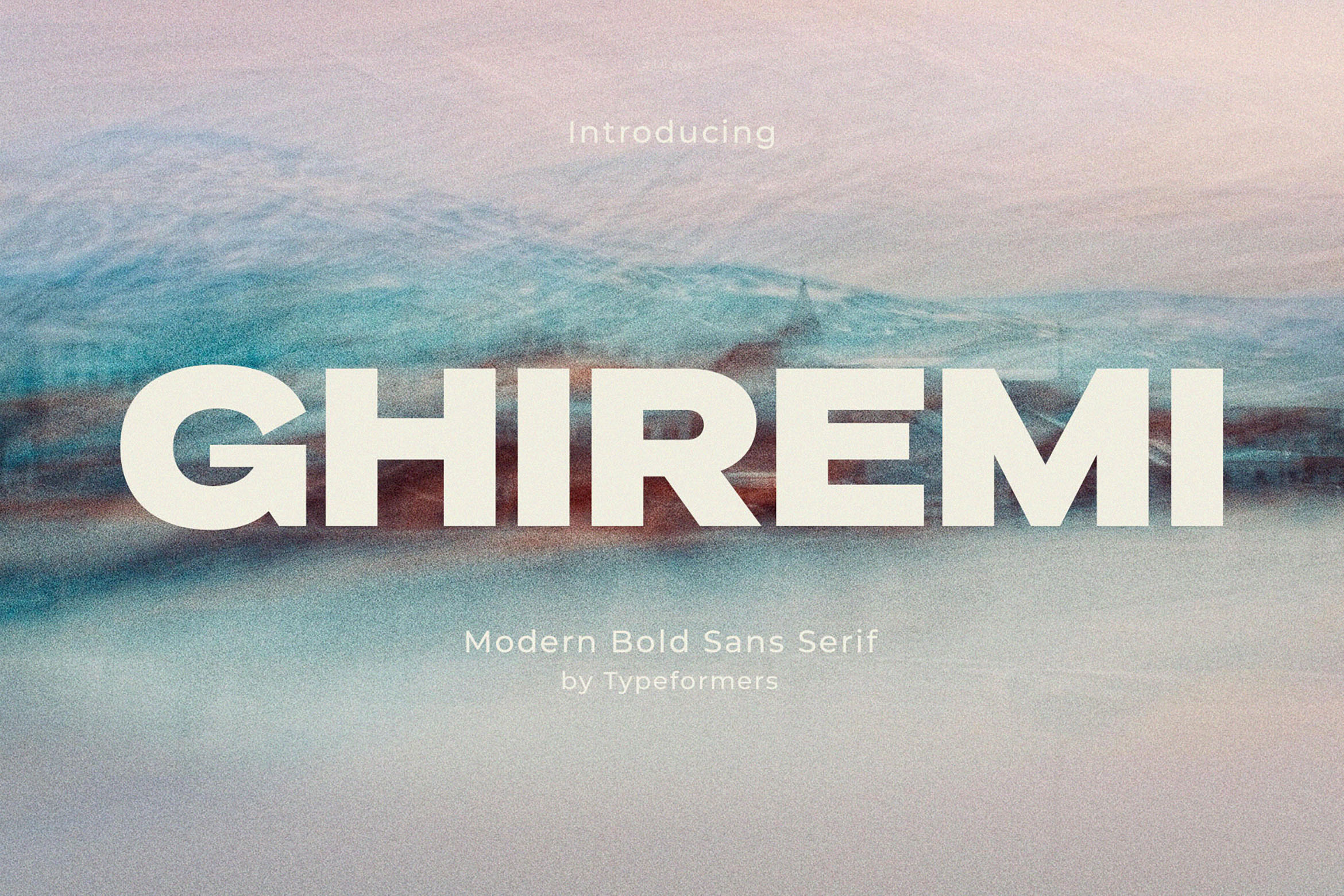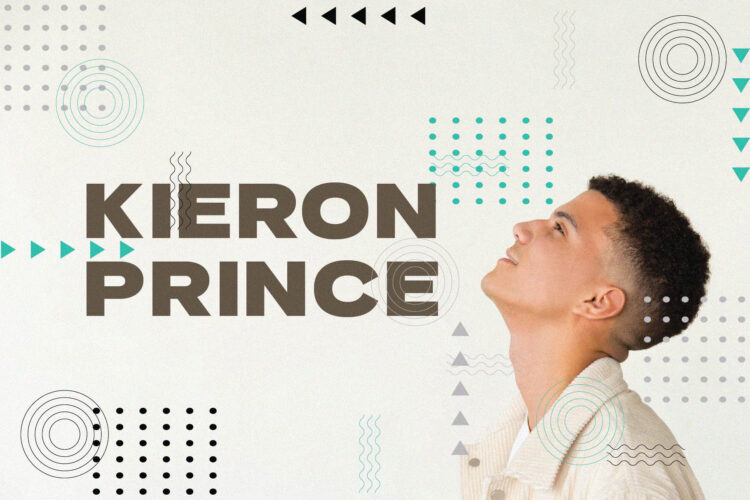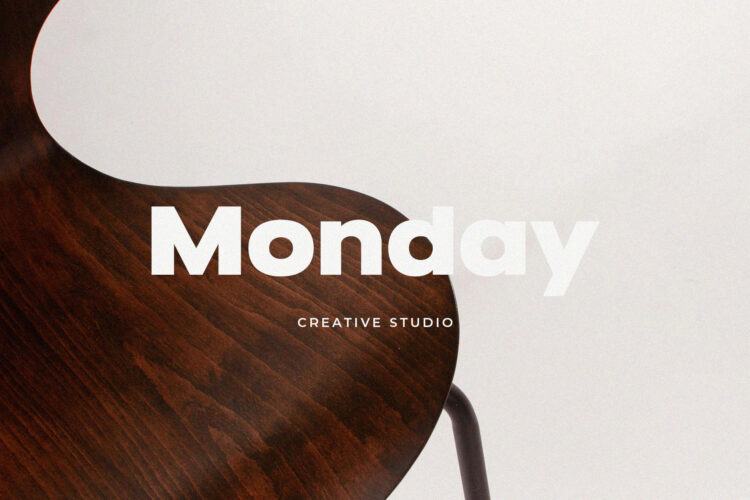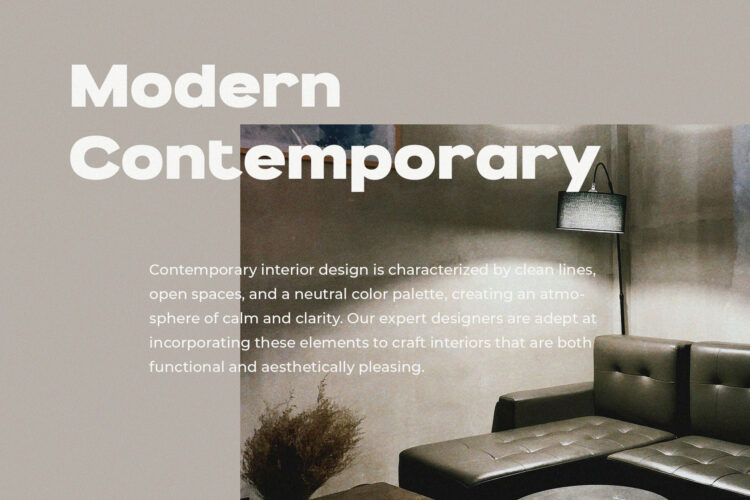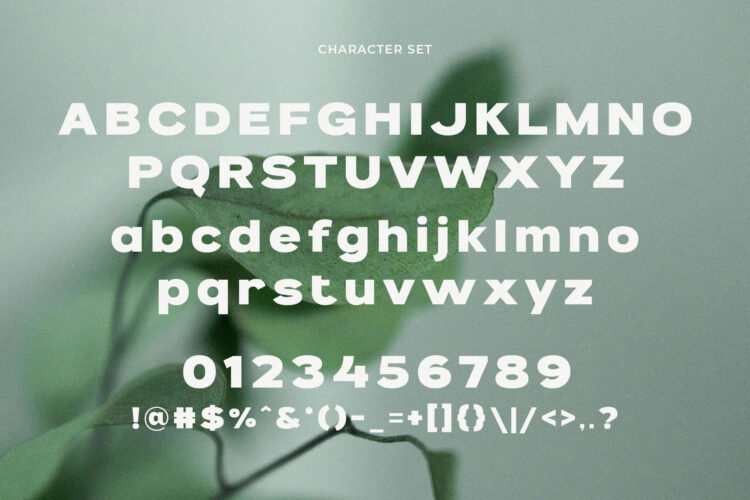
Introducing Ghiremi – Modern Bold Sans Serif.
Ghiremi is a modern and simple font, best used as a display for headings, logos, branding, magazines, product packaging and invitations.